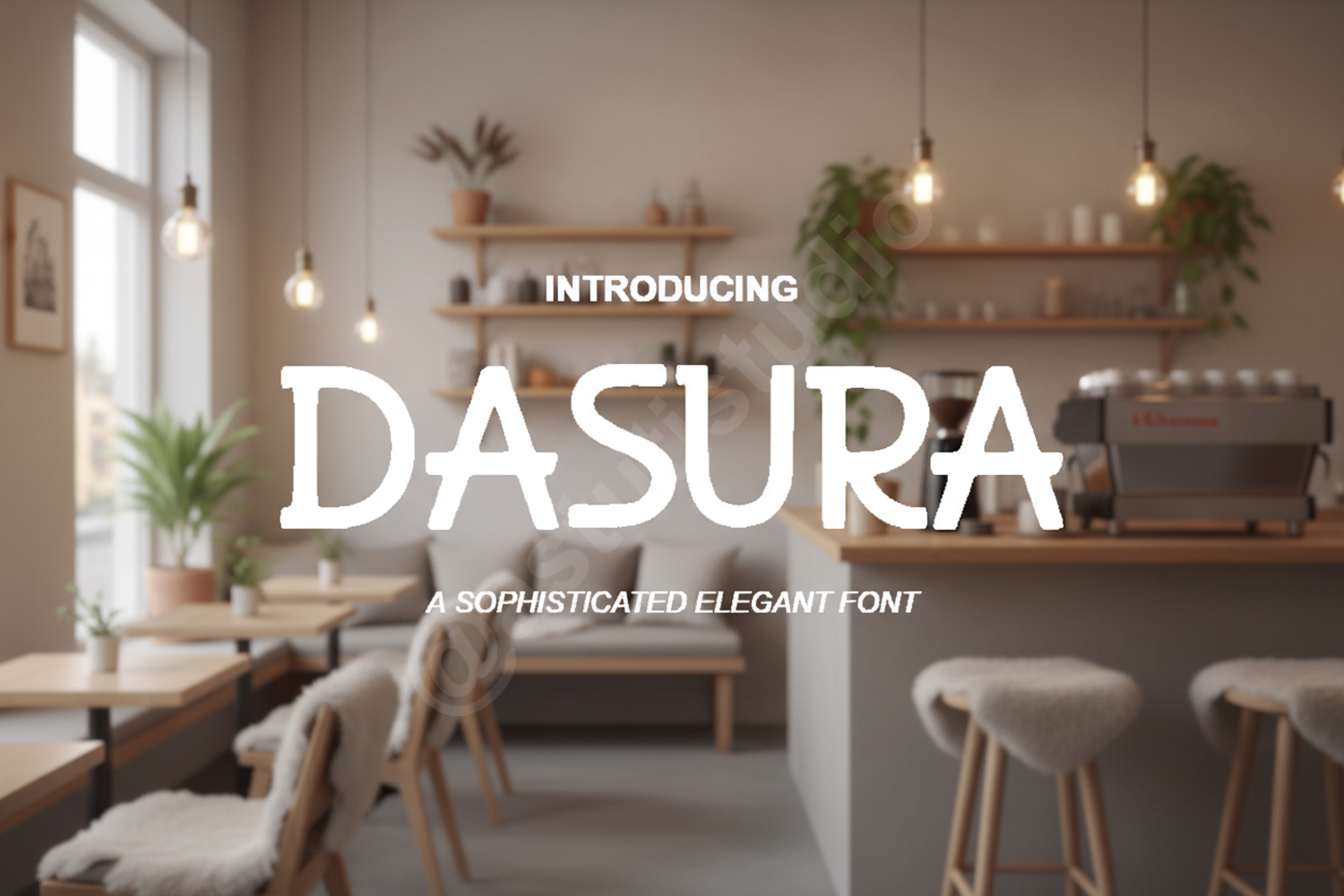
Dasura - Elegant Modern Serif Display
Dasura
Elevate your design projects with Dasura, a premium serif font that embodies sophistication and timeless beauty. Crafted with meticulous attention to detail, Dasura features balanced proportions and clean lines, making it the perfect choice for designers seeking a touch of luxury and professional flair. Whether you are working on a high-fashion project or a minimalist corporate identity, Dasura provides the versatility needed to make a lasting impression.
- High-end Branding and Identity systems
- Sophisticated Editorial Layouts and Magazine Headers
- Elegant Wedding Invitations and Event Stationery
- Minimalist Logo Design and Typography
- Luxury Product Packaging and Social Media Graphics